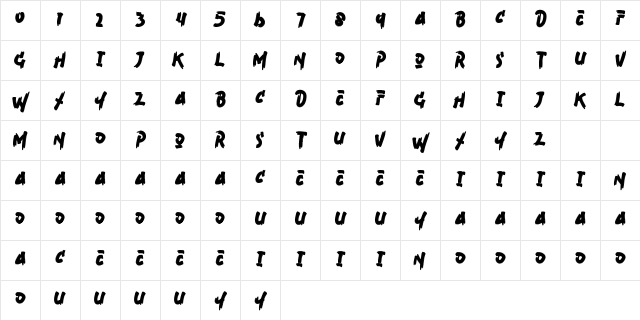
Ace Nova Brush Regular
Foundry: Lettercorner Studio
Designer: Muhammad Afif Ersya
Complete Ace Nova Brush Regular glyph index. Displaying only characters natively supported by Ace Nova Brush Regular font.
Design Context for Ace Nova Brush
Ace Nova Brush flows with the natural rhythm of handwritten lettering, making it ideal for designs that call for warmth and personal expression.
Font Pairing: Combine Ace Nova Brush with a simple geometric sans for maximum contrast - the tension between flowing curves and clean structure is a classic typographic pairing.
Pro Tip: Use Ace Nova Brush for short runs of text - names, titles, or taglines. Extended body copy in script faces tires the eye quickly.